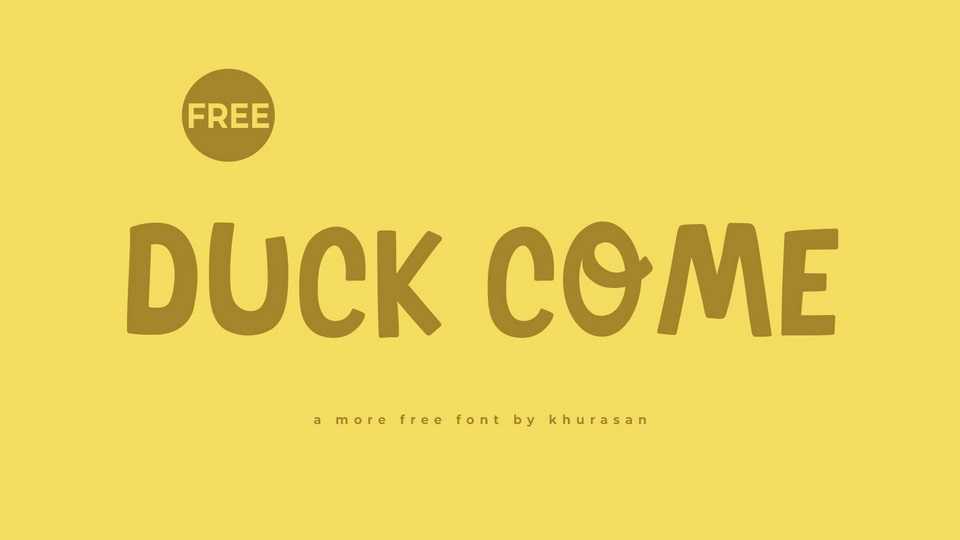
Download Duck Come font, a playful and quirky cartoon typeface that adds a dose of humor and charm to your designs. This font is the perfect choice for projects that demand a friendly and animated touch, from comic book captions to vibrant children’s book illustrations.